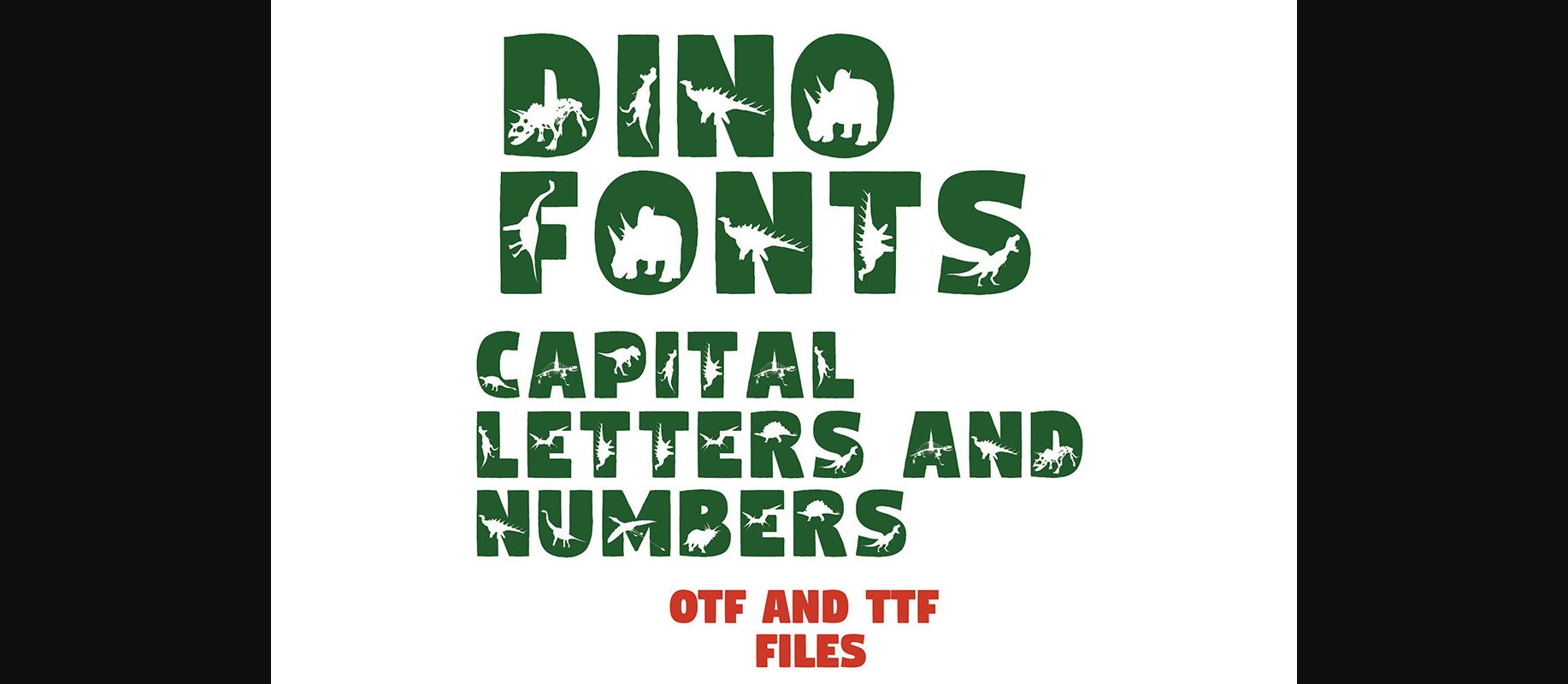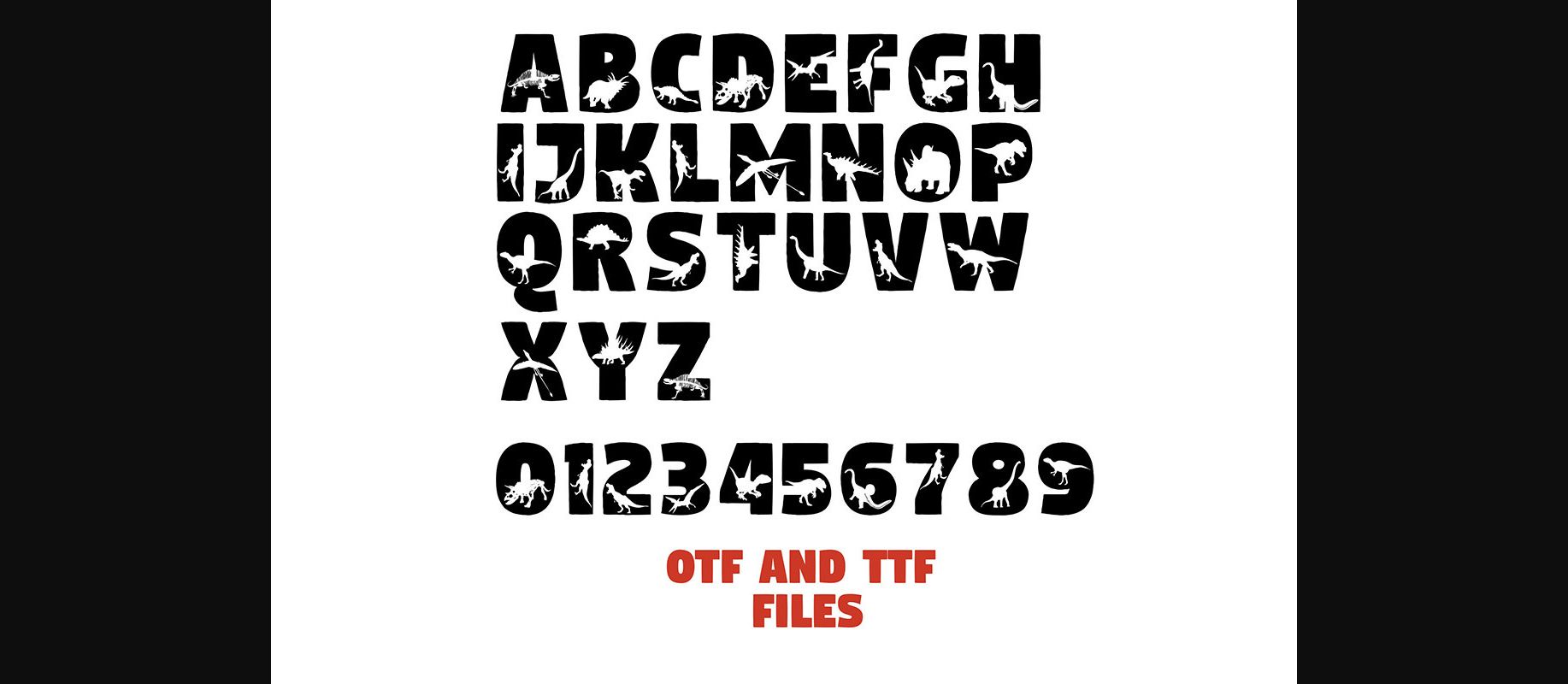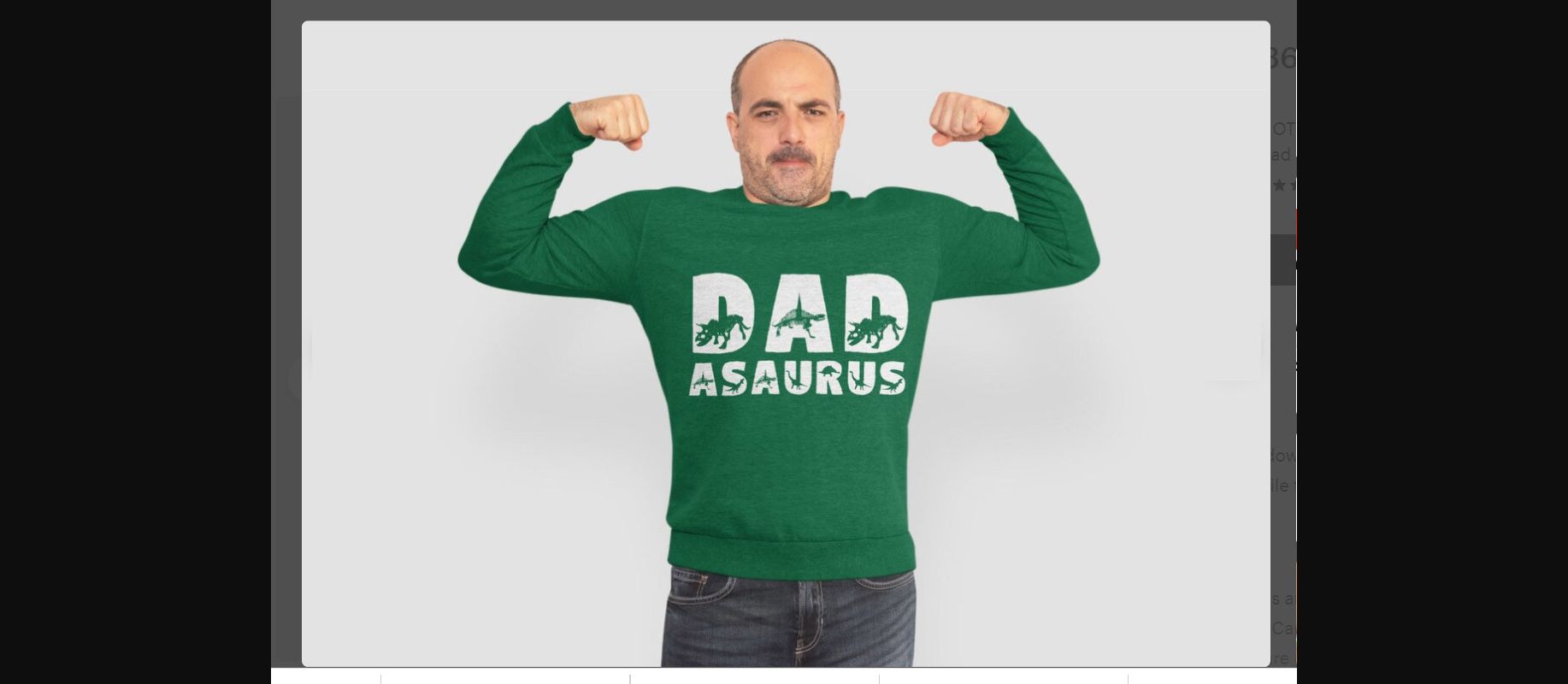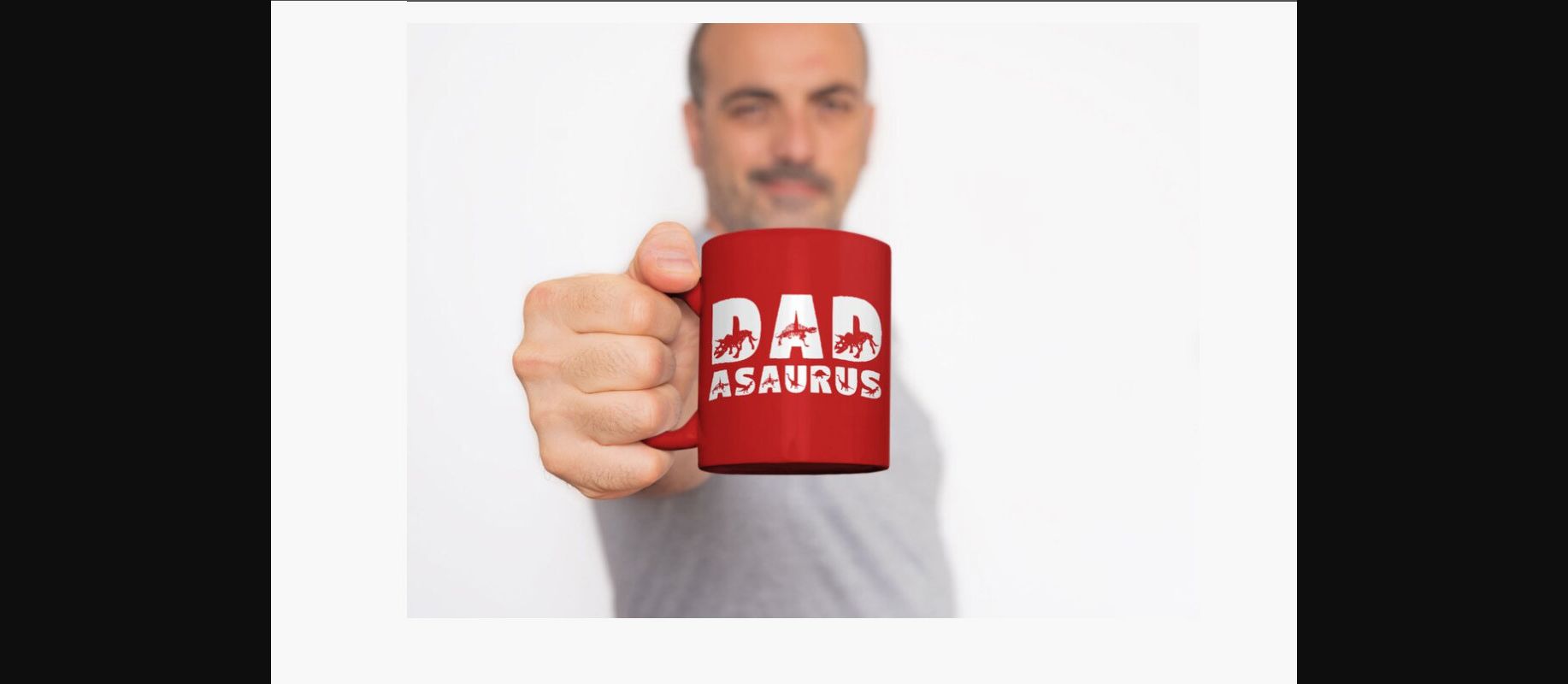
About Dino Font
Roar into creativity with Dino, a captivating alphabet and numbers font that takes you back to the prehistoric era. Perfect for dinosaur-themed projects, children’s book illustrations, educational materials, and playful designs, this font will transport your audience to a world of adventure and imagination. Let the mighty dinosaurs breathe life into your designs with the Dino font, available in both OTF (OpenType) and TTF (TrueType) formats for your convenience.